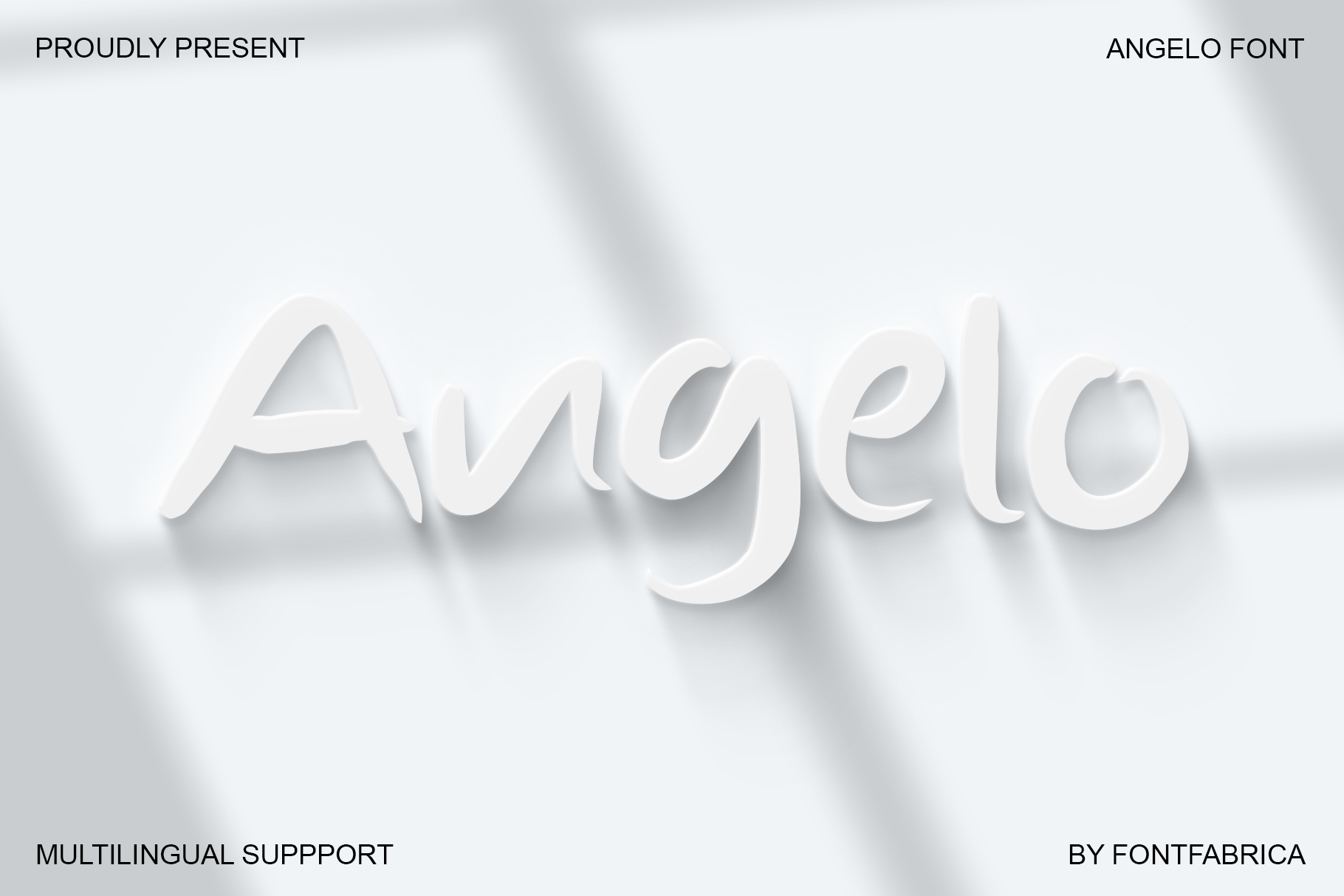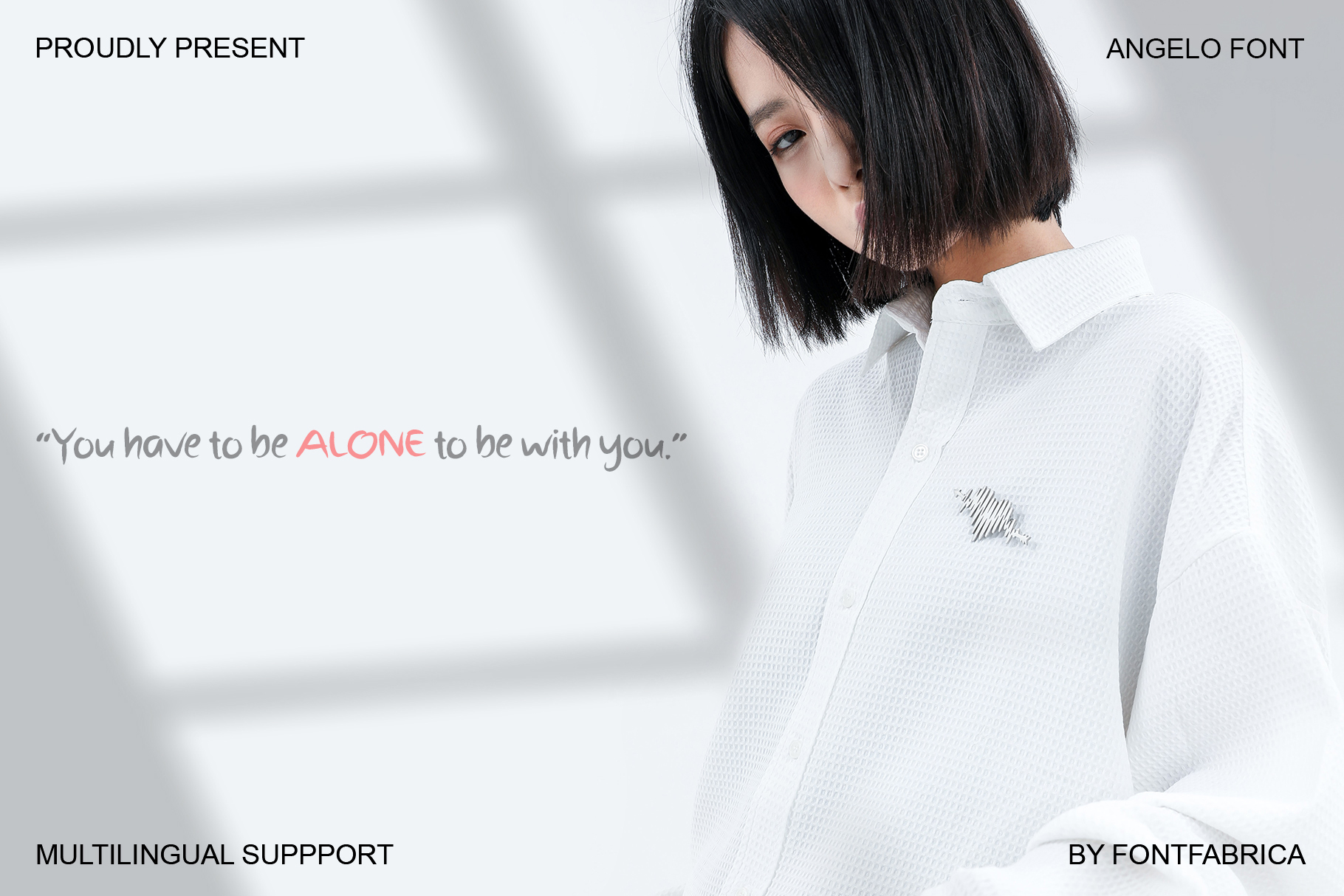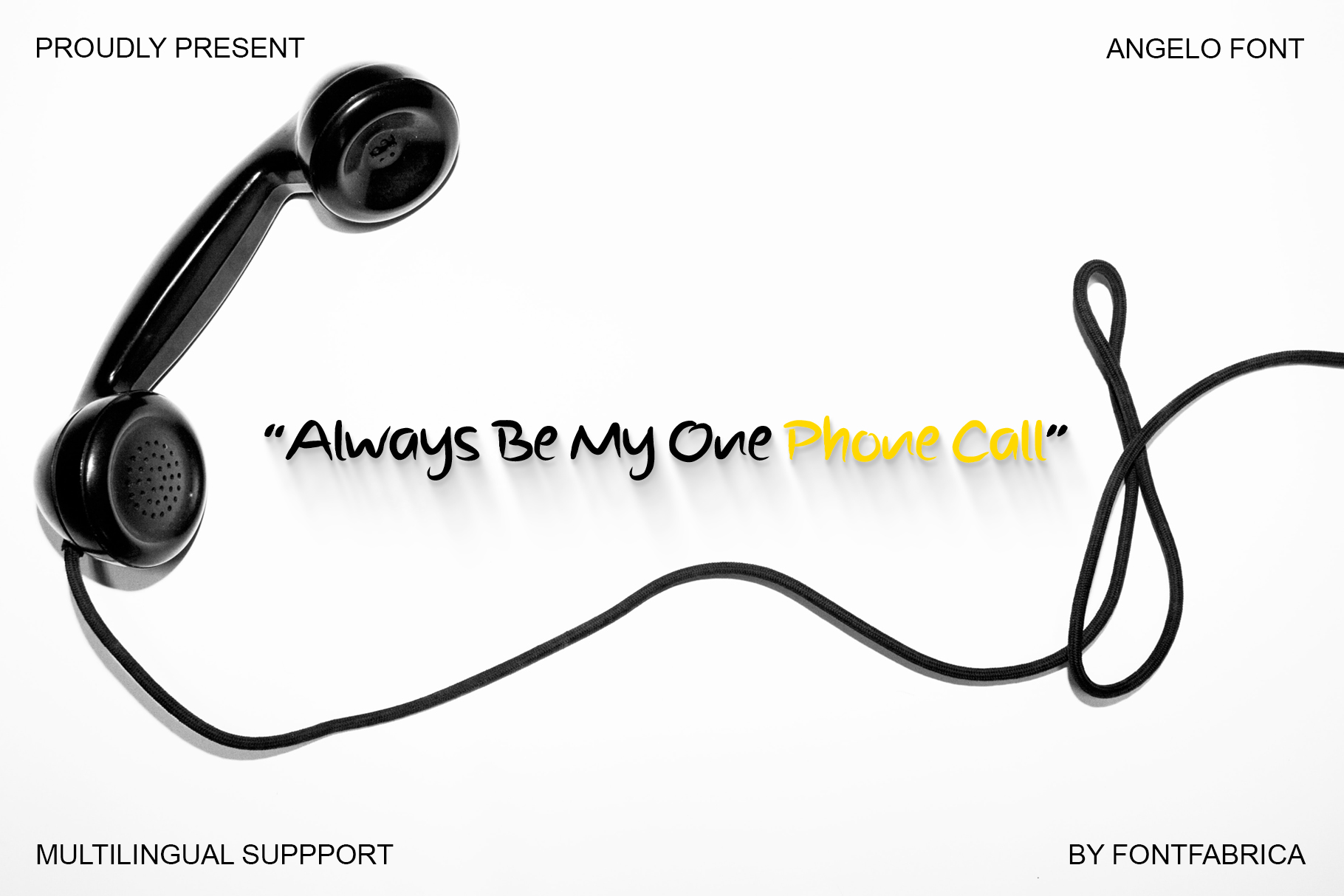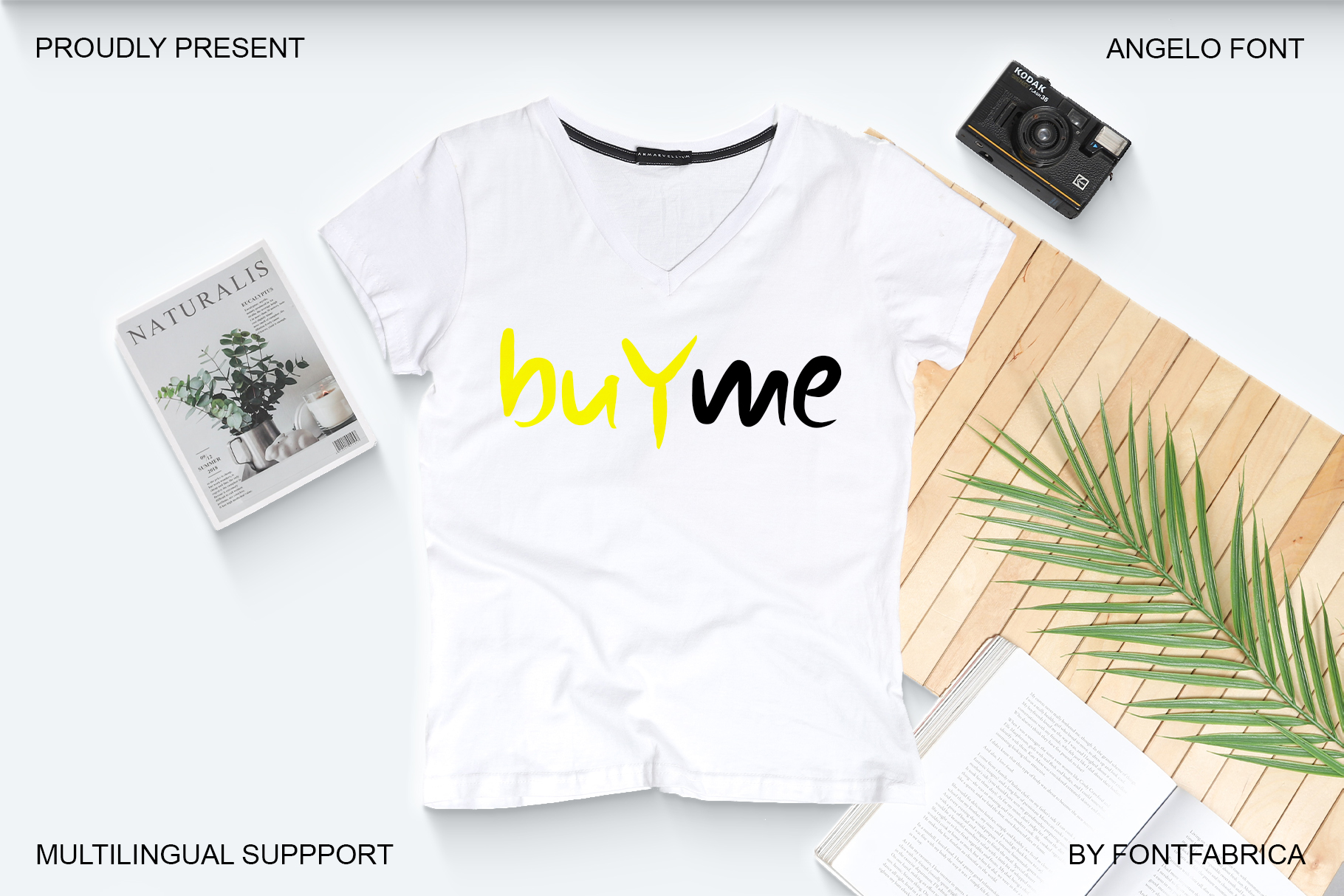
ANGELO Font
ANGELO Display Font
This is fun and happy trio font. it has a raw, hand made, and cheerful atmosphere. It can easily be matched to an incredibly large set of projects, and good for communicating your brands. If you want to make a design that raw and fun also delicious, twice bake potatoes is your good matches.